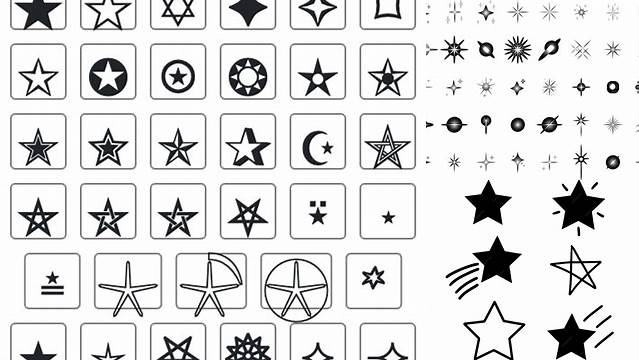
Star Symbol Fonts: ✨ Add Sparkle To Your Designs
Hey guys! Ever wanted to add a little sparkle to your texts, social media posts, or designs? You've come to the right place! This guide is all about fonts simbolos estrellas – that's star symbols in fonts for those who don't speak Spanish 😉. We're going to dive deep into how to find them, use them, and even create your own stellar designs. Get ready to add some cosmic flair to everything you do!
Finding the Perfect Star Font
Finding the perfect star font can feel like searching for a specific constellation in a vast night sky. But don't worry, we're here to guide you. The world of fonts simbolos estrellas is surprisingly diverse, ranging from simple five-pointed stars to intricate, celestial-themed designs. Understanding where to look and what to look for is the first step in adding that perfect sparkle to your projects. You'll quickly discover that the right font can transform a simple message into something truly captivating. It’s about choosing the visual language that best reflects your style and the message you want to convey. So let's embark on this stellar journey and find the font that speaks to your inner star!
Online Font Libraries for Star Symbols
Online font libraries are your treasure troves when it comes to fonts simbolos estrellas. Websites like DaFont, FontSpace, and Google Fonts often have dedicated sections or search functionalities that allow you to filter for dingbats, symbols, or decorative fonts. This makes the hunt for star-themed fonts significantly easier. When you're browsing, remember to look beyond just the individual star symbols. Consider the overall style of the font. Does it match the aesthetic you're going for? Some fonts offer delicate, minimalist stars, while others might feature bold, cartoonish versions. The key is to explore and experiment. Many of these libraries also offer previews, so you can see how the stars will look in context before you download them. Don't be afraid to try different keywords in your search, like "celestial fonts" or "astrology symbols," to uncover even more options. With a little bit of digging, you're sure to find a star font that's a perfect fit.
Using Star Symbols in Your Designs
Now that you've got your hands on some awesome fonts simbolos estrellas, it's time to put them to work! But where do you start? How do you effectively incorporate these stellar symbols into your designs without overdoing it? Using star symbols effectively is an art. It’s about striking a balance between adding visual interest and maintaining clarity and readability. Whether you're designing a logo, sprucing up a social media post, or creating a greeting card, the right placement and context can make all the difference. Think of star symbols as the ✨sprinkles✨ on your design cupcake – a little goes a long way, but the impact can be magical. Let's explore some creative ways to use these symbols and make your designs shine brighter than ever!
Adding Star Symbols to Text
Adding fonts simbolos estrellas to text can instantly elevate your message from ordinary to extraordinary. Think about using stars as bullet points in a list, or as separators between words or phrases. You can even use them to emphasize a particular word or add a touch of whimsy to a headline. The key here is subtlety. Too many stars can quickly become overwhelming, making your text look cluttered and difficult to read. Experiment with different sizes and placements to find the sweet spot. Consider using stars that complement the overall tone of your message. A delicate, five-pointed star might be perfect for a heartfelt greeting, while a bold, geometric star could be more suitable for a promotional announcement. Remember, the goal is to enhance your text, not distract from it. A well-placed star can add a sense of magic and wonder, drawing the reader's eye and making your message truly memorable.
Using Stars in Social Media Posts
Social media is all about grabbing attention, and fonts simbolos estrellas can be your secret weapon! These symbols are perfect for adding visual flair to your posts, making them stand out in a crowded feed. Think about using star symbols in your captions to highlight key points, add emphasis, or simply create a more engaging visual experience. They can also be used in your profile name or bio to give your profile a unique and memorable touch. When using stars in social media, consider your brand's overall aesthetic. Do you want to create a whimsical, playful vibe, or something more sophisticated and elegant? Choose star symbols that align with your brand's personality. And remember, mobile-first! Most people will be viewing your posts on their phones, so make sure the stars are legible and don't overwhelm the text on smaller screens. A well-placed star can act as a visual cue, guiding the viewer's eye and making your content more likely to be noticed and engaged with. So go ahead, sprinkle some star power on your social media presence!
Star Symbols in Graphic Design Projects
Graphic design projects are where fonts simbolos estrellas can truly shine. Whether you're designing a logo, a poster, or a website, star symbols can add a touch of magic, elegance, or playfulness, depending on your creative vision. Consider using stars as a focal point in your design, or as subtle accents that add visual interest. In logo design, a star can symbolize aspirations, guidance, or a sense of wonder. In posters, stars can create a cosmic atmosphere, draw attention to key information, or simply add a decorative element. When designing websites, star symbols can be used as icons, bullet points, or even as part of a background pattern. The possibilities are endless! The key is to think about how the stars interact with other elements in your design. Do they complement the overall color scheme? Do they enhance the typography? Do they convey the right message and mood? Experiment with different sizes, shapes, and arrangements of stars to achieve the desired effect. And don't forget to consider the context. A design for a children's book might call for whimsical, cartoonish stars, while a design for a luxury brand might benefit from more elegant, minimalist stars. With a little creativity, you can transform your graphic design projects into stellar masterpieces.
Creating Your Own Star Symbol Font
Feeling extra creative? Why not try making your own fonts simbolos estrellas? It might sound daunting, but with the right tools and a little bit of patience, it's totally achievable! Creating your own font gives you complete control over the look and feel of your star symbols, allowing you to craft something truly unique and personalized. Whether you're a seasoned designer or a complete beginner, the process of font creation can be incredibly rewarding. It's an opportunity to unleash your inner artist and bring your vision to life. Plus, imagine the satisfaction of using your very own star symbols in your designs! Let's explore the steps involved in creating your own stellar font.
How do I create a glowing star symbol effect?
Creating a glowing fonts simbolos estrellas effect can add a real wow factor to your designs! It's a popular technique for making stars look like they're radiating light, and it's surprisingly easy to achieve with the right software and a few simple steps. The specific steps will vary depending on the program you're using, but the basic principle is the same: you'll be adding a glow or outer glow effect to your star symbol. In programs like Adobe Photoshop or Illustrator, you can use the Layer Effects or Appearance panel to add a glow. Look for options like Outer Glow or Glow, and experiment with different settings like the color, size, opacity, and blend mode of the glow. A soft, white or yellow glow will typically give you the most realistic effect, but you can also try using other colors for a more stylized look. You can also use gradients to create a more dynamic glow effect. Another trick is to create multiple layers of the same star symbol, each with a slightly different glow setting. This can create a layered, luminous effect that really makes the star pop. If you're working with vector graphics, make sure your star symbol is a vector shape, not a raster image. This will ensure that the glow effect is smooth and crisp, even when you scale the star up or down. With a little bit of experimentation, you'll be able to create stunning glowing star symbols that will light up your designs!